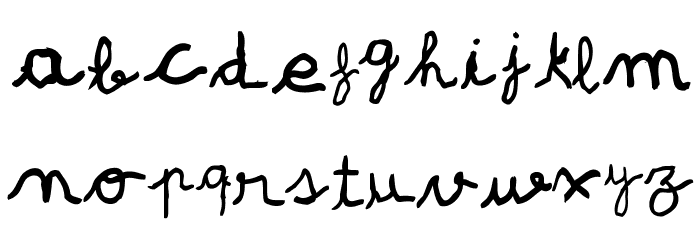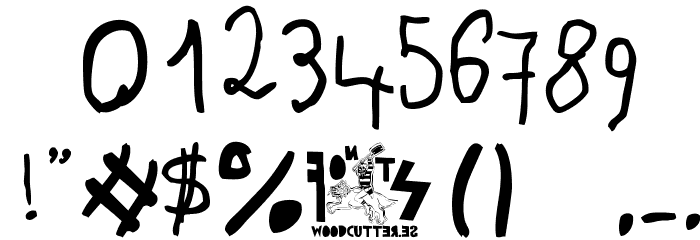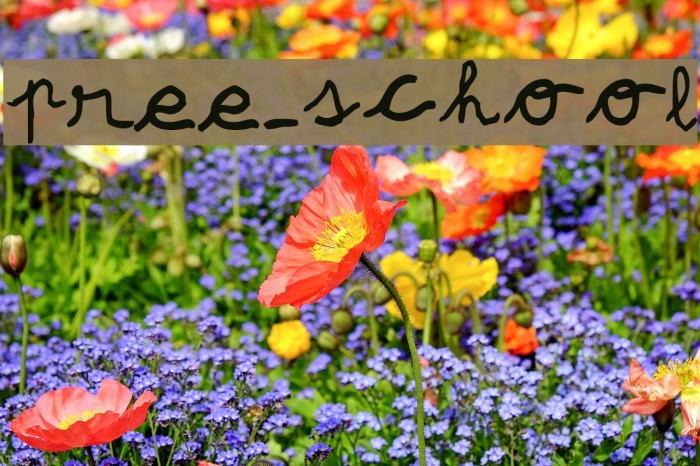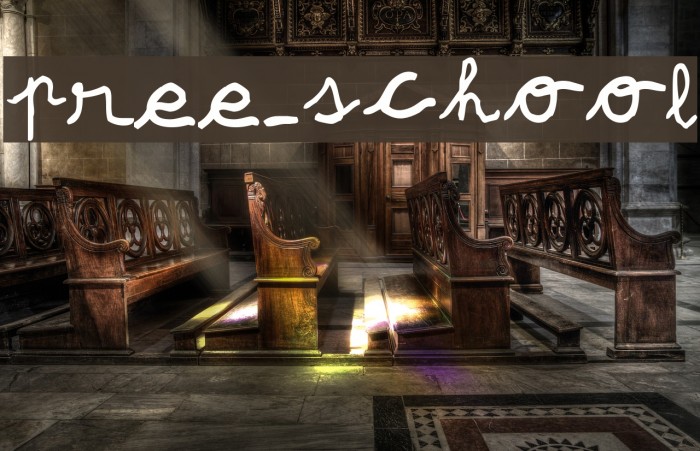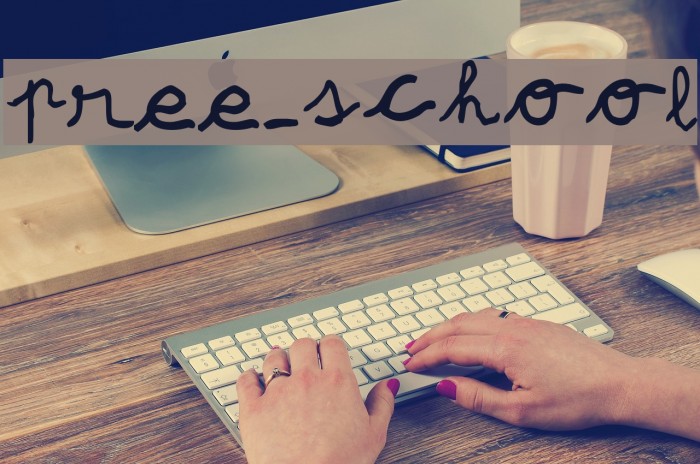
pree-school Font
This playful and whimsical font features a hand-drawn style that mimics the carefree and creative strokes of a child's handwriting. The letters are uneven and slightly wobbly, adding a sense of spontaneity and charm. Uppercase and lowercase letters maintain a consistent style, with rounded edges and varying line thicknesses that give the font a lively and energetic feel. The numbers and special characters follow the same playful design, making it suitable for projects that require a fun and informal touch.
A playful, hand-drawn font with a childlike, whimsical style.
- Proposed Projects: Ideal for children's books, educational materials, playful branding, and creative posters.
- Overall Style: Playful